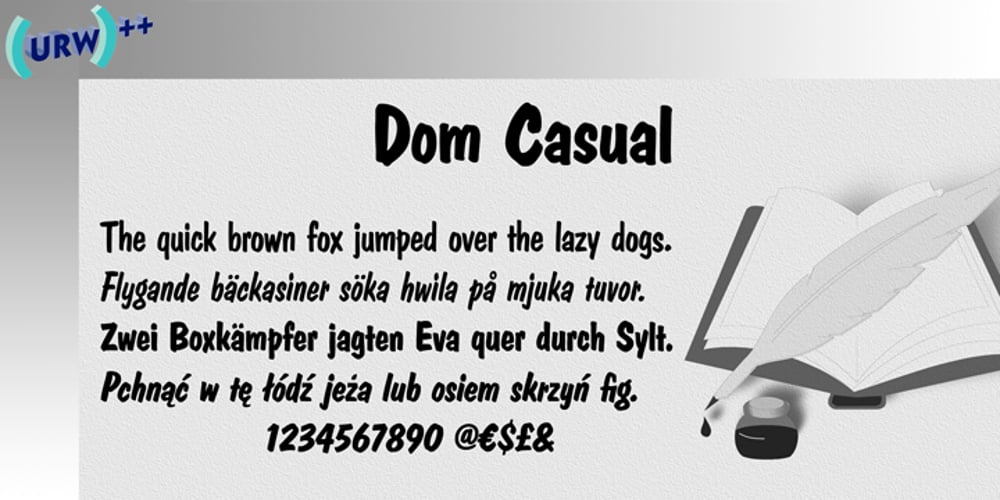
Dom Casual Font Family was designed by Peter Dombrezian and published by URW Type Foundry. Dom Casual contains 4 styles and family package options. Dom Casual is a very condensed script, almost monotone, with irregular vertical strokes ending at different heights, and which suggests a freehand effect. It was designed by Pete Dom in 1951 for American Type Founders. As its name suggests, the Dom Casual font gives the appearance of a quick brush-like lettering and is suitable for setting titles, subheadings and short copy. There is some variations of stress in the rounded letters.